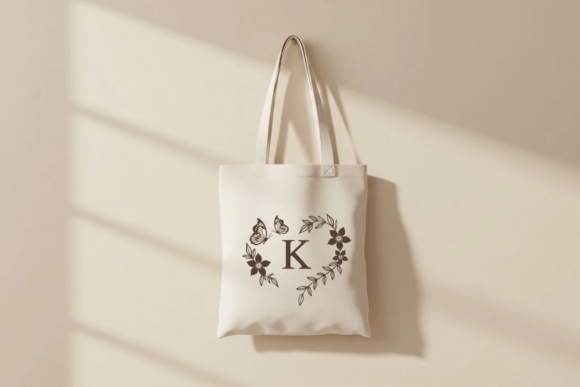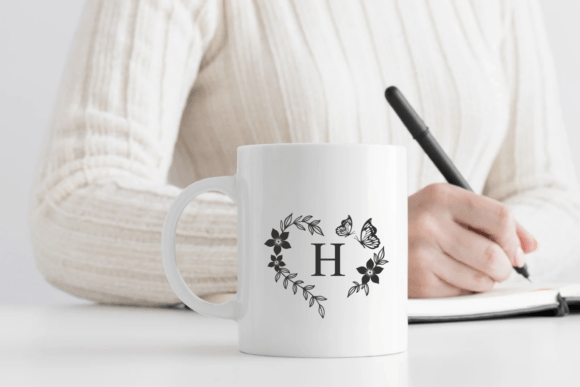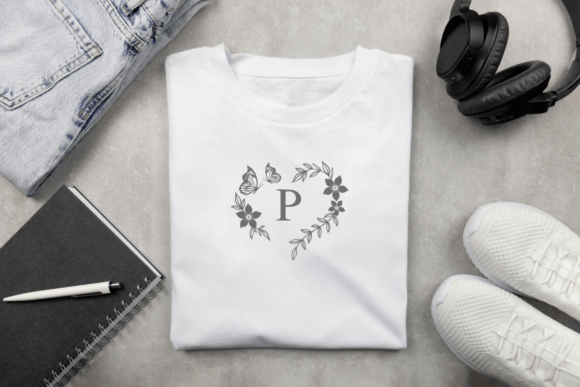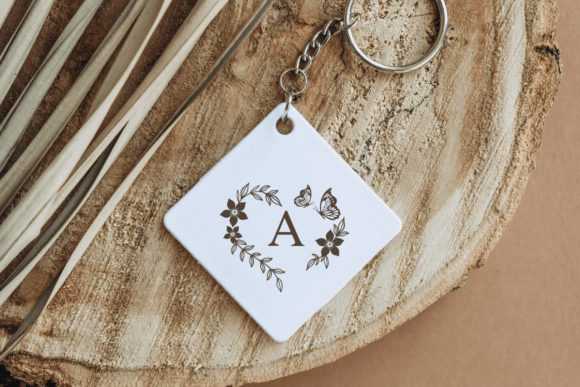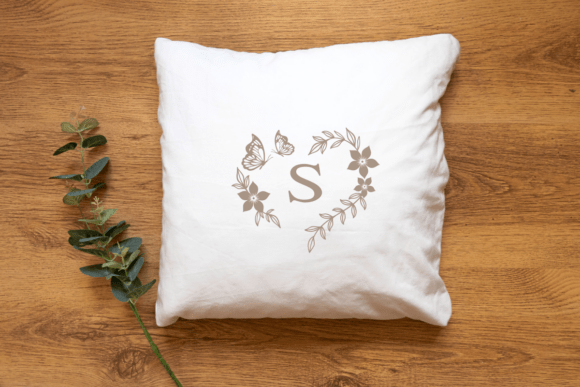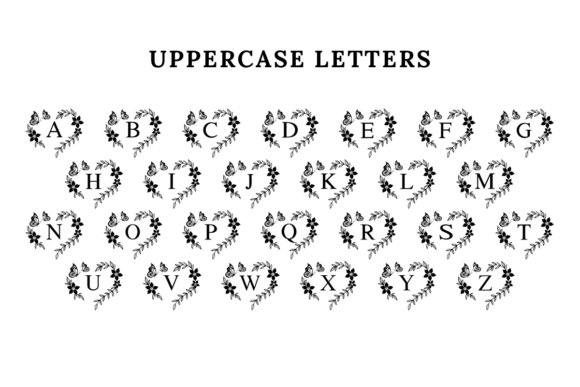
Introducing Flora Heart Monogram Font: Elevate Your Designs with Elegance
Are you a designer, crafter, or DIY enthusiast looking for a unique and captivating font to add a touch of elegance to your projects? Look no further than the Flora Heart Monogram Font! This lovely decorative font is sure to become a staple in your creative arsenal, and we’re excited to dive into its features, uses, and benefits.
What is Flora Heart Monogram Font?
Flora Heart Monogram Font is a beautifully crafted decorative font, designed to bring a touch of sophistication and whimsy to your designs. Its intricate and ornate style makes it perfect for creating stunning monograms, logos, and titles that will leave a lasting impression.
Key Features of Flora Heart Monogram Font
- Unique and Elegant Design: Flora Heart Monogram Font boasts a distinctive and eye-catching design, making it ideal for adding a touch of luxury to your projects.
- Monogram-Perfect: As its name suggests, this font is specifically designed for creating beautiful monograms, making it a must-have for crafters and designers who work with personalized gifts, stationery, and more.
- Versatile and Adaptable: Whether you’re working on a digital project or a physical craft, Flora Heart Monogram Font can be used in a variety of contexts, from invitations and greeting cards to logos and branding materials.
- Easily Customizable: With its clear and readable design, you can easily customize the font to fit your project’s specific needs, including adjusting the size, color, and style to match your brand or design aesthetic.
Who Can Benefit from Flora Heart Monogram Font?
Flora Heart Monogram Font is an excellent addition to any creative’s toolkit, particularly:
- Graphic Designers: Add a touch of elegance to your designs, logos, and branding materials with this beautiful font.
- Crafters: Create stunning personalized gifts, such as monogrammed towels, pillows, and more.
- Stationery and Paper Crafters: Elevate your stationery, greeting cards, and invitations with this lovely font.
- DIY Enthusiasts: Use Flora Heart Monogram Font to create custom signs, wall art, and other decorative projects.
To get the most out of Flora Heart Monogram Font, try experimenting with different:
- Color Schemes: Pair the font with pastel colors for a soft, romantic look or bold and bright hues for a more modern feel.
- Textures and Patterns: Combine the font with textures and patterns, such as watercolor or gold foil, to add depth and interest.
- Design Elements: Mix and match Flora Heart Monogram Font with other design elements, such as flowers, leaves, or geometric shapes, to create a unique and eye-catching design.